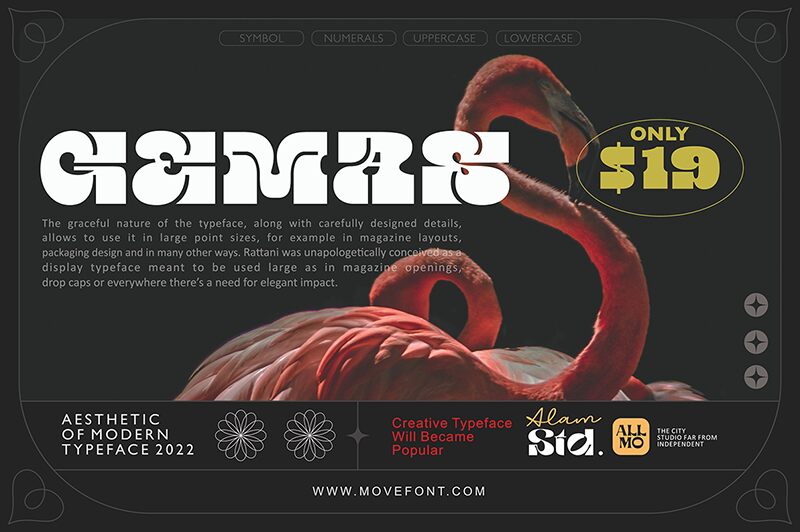
Gemas, crafted by the creative talents at www.movefont.com, stands out as a groovy display font that commands attention with its extra-bold weight and expanded width. This typeface boasts an aesthetic that is both retro and contemporary, making it a versatile choice for designers looking to inject personality and flair into their projects. With its curvaceous lines and solid presence, Gemas exudes confidence and style, setting the stage for impactful headlines, spirited advertising campaigns, and eye-catching branding.
The font's playful rhythm makes it particularly suitable for industries that thrive on energy and creativity. Whether used in digital media or print, Gemas is sure to elevate any design with its distinctive charm and bold character.